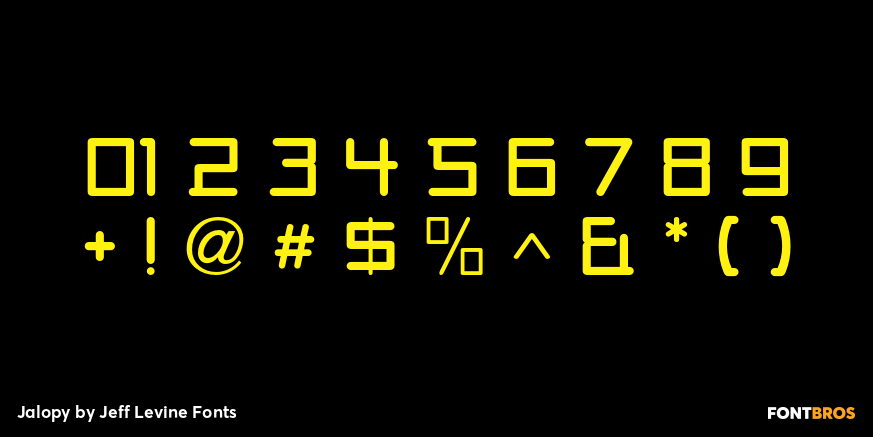
Jalopy
History, as it's said, tends to repeat itself. The round-point pen lettering used in the 1920s logo and ads for Dodge Brothers cars (pre-General Motors) is an early predecessor to the techno type styles of the 1980s.
Square in shape, with unique stylization to some letters, Jalopy JNL can cross the decades and be used for a 1920s period piece and still look fresh in an ad for computer parts.
Rather than round out the inside lines of the characters to fully emulate the strokes of a lettering pen, the inside lines have straight intersections for the contemporary side of this font's design.